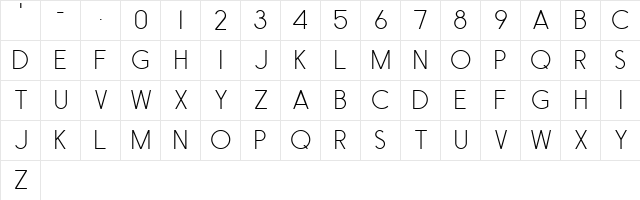
Metalarts 301 Deep Ribbon Regular
Design Context for Metalarts 301 Deep Ribbon Typeface
Metalarts 301 Deep Ribbon offers clean, dependable letterforms without strong stylistic allegiance, making it a practical choice for designers who need flexibility.